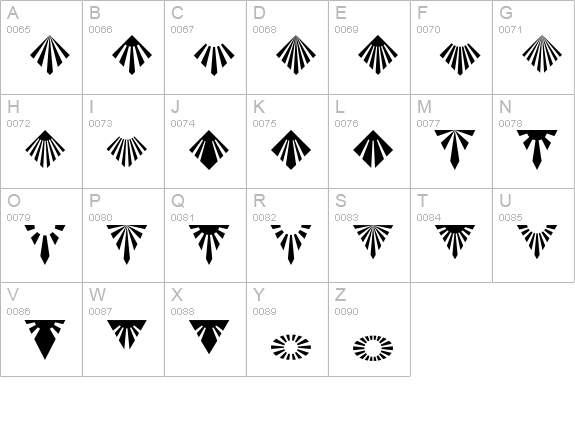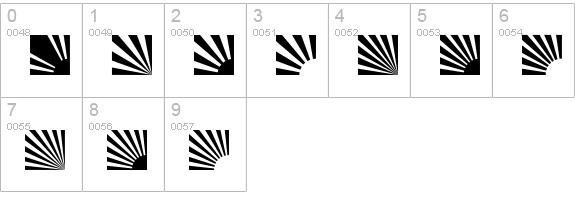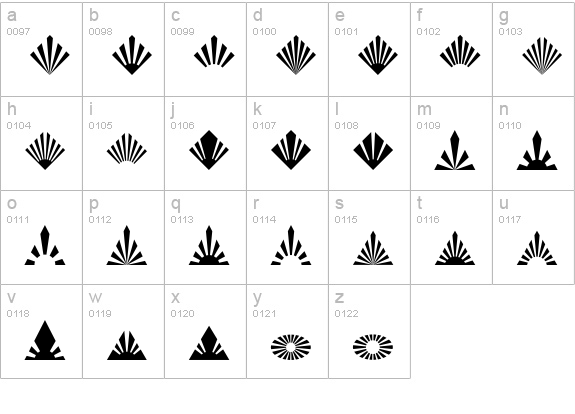
AltemusRaysBold Font Details
AltemusRaysBold is a stunning and versatile font that exudes a bold and modern aesthetic. With its strong lines and stylish curves, this typeface is perfect for making a statement in your designs. The striking look of AltemusRaysBold will grab attention and add a touch of sophistication to any project. The best part about AltemusRaysBold is that it is completely free to download at FontsMarket.com. This means you can access this high-quality font without any cost, making it a fantastic choice for both personal and commercial use. Whether you're working on a branding project, advertising campaign, or any other creative endeavor, AltemusRaysBold is sure to elevate your designs and leave a lasting impression. Download it now and unleash the power of this captivating font in your work.